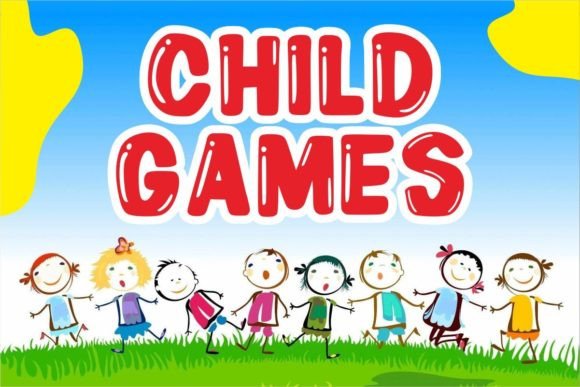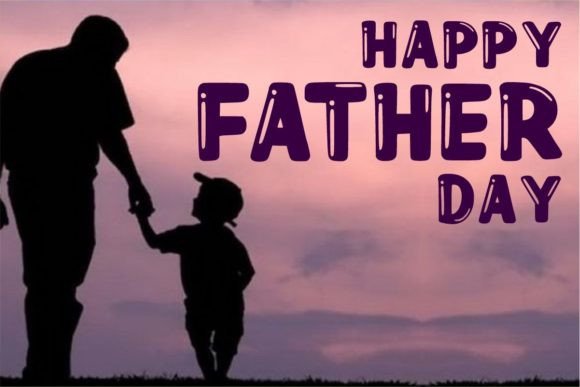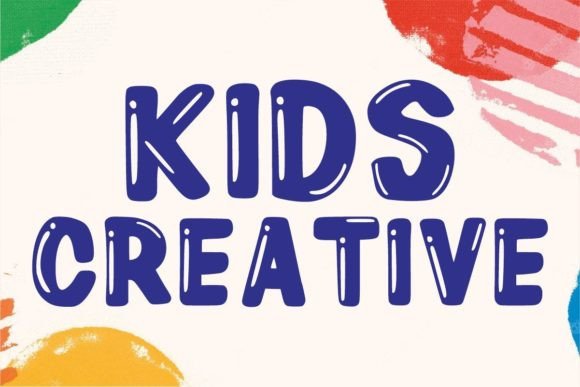
Introduction to Mcd Kids Font
Mcd Kids is a fun-looking children’s font that will make your creative projects stand out.
This font is perfect for designs about kids, books, comic covers, kids t-shirts, social media posts, and more .
Key Features of Mcd Kids Font
Why Choose Mcd Kids Font?
Mcd Kids Font offers exceptional quality and versatility, making it a valuable addition to your design toolkit. Whether you’re creating for personal projects or commercial use, Mcd Kids Font delivers professional results.